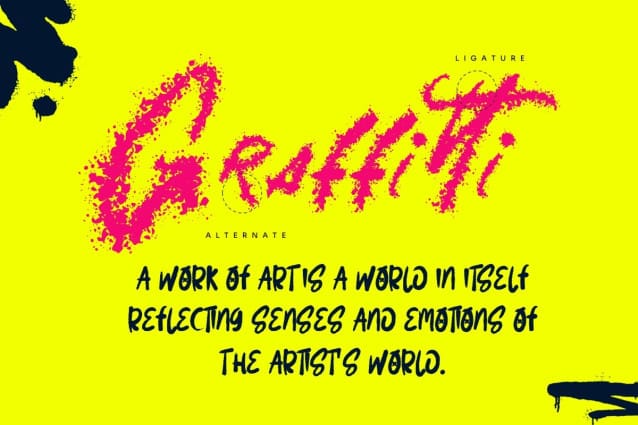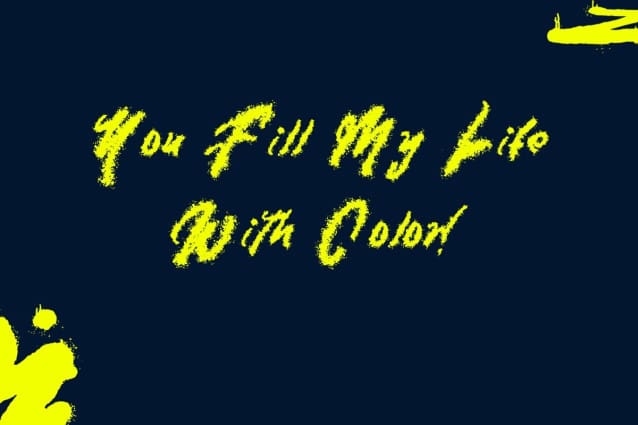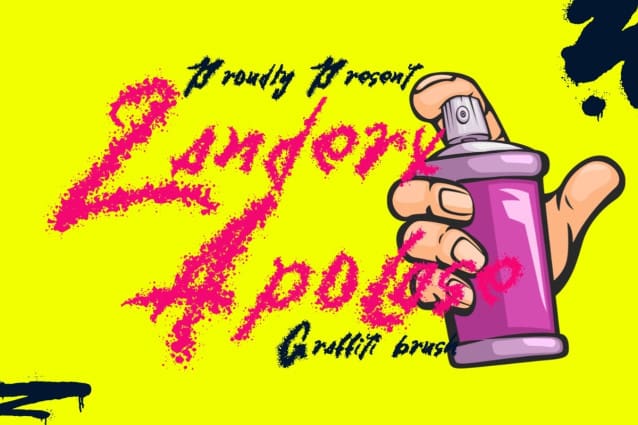
Zanderx Apolase Font
Zanderx Apolase Font – Graffiti Brush is a digital brush tool designed to create graffiti-style art. It mimics the look of spray paint, allowing artists to create bold, textured, and vibrant designs. Perfect for adding a street art feel to digital projects.